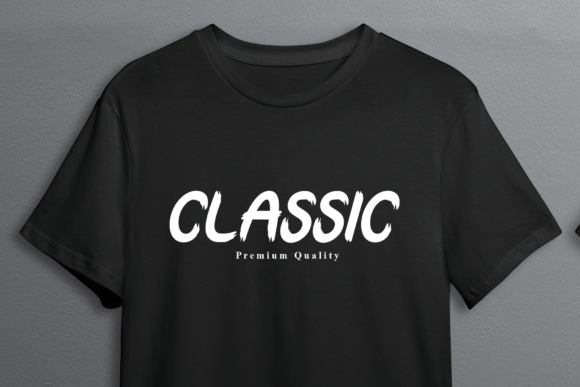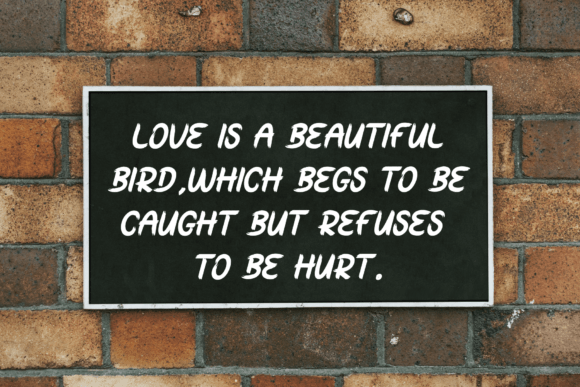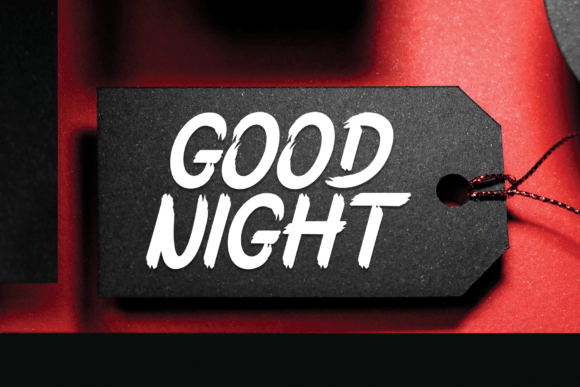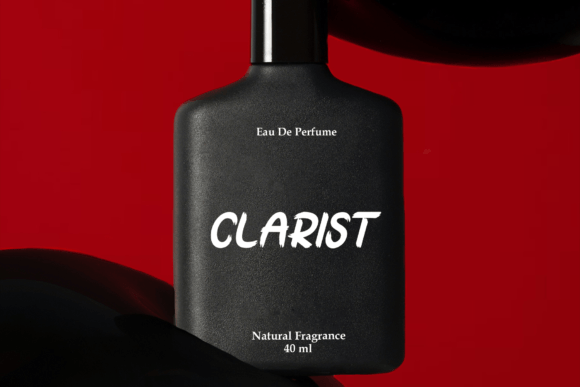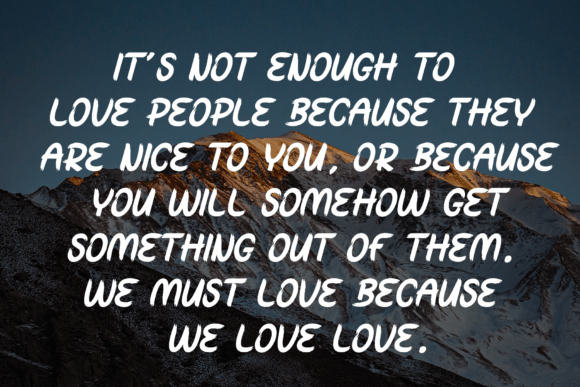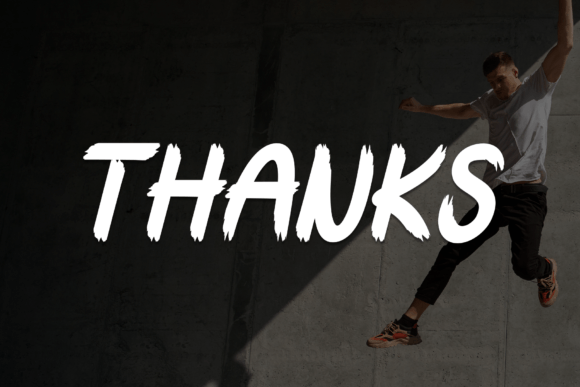
Unleashing Your Creativity with Break Jump Font
Have you ever stared at a blank page, a blank canvas, or a blank screen, and felt a rush of excitement and anticipation? That’s the moment when creativity strikes, and the possibilities seem endless. As designers, we’ve all been there – waiting for the perfect font to bring our vision to life. That’s where Break Jump Font comes in – a sweet and friendly handwritten font that’s designed to help you break free from the ordinary and jump into the world of unique and captivating designs.
Built with a natural and one-of-a-kind style, Break Jump Font is the perfect addition to any design project. Its versatility and charm make it an ideal choice for a wide range of applications, from social media graphics to product packaging, and from wedding invitations to restaurant menus. Whether you’re a seasoned designer or just starting out, Break Jump Font is a valuable tool that will help you unlock your full creative potential and take your designs to the next level.
Break Jump Font Key Features
- Font Family: Break Jump Font is a sans-serif font family designed for digital and print use.
- Unique Characteristics: Break Jump Font features a bold and energetic design, with a distinctive jump in letterforms, creating a dynamic visual effect.
Break Jump Font Review
Overall, I think the Break Jump Font is a fun and creative option for designers looking to add some energy to their projects. ✨ It’s definitely a conversation starter and can help grab the user’s attention. The font’s unique blend of bold and playful elements makes it perfect for headlines and titles.
The Break Jump Font is a great choice for:
- Creating a sense of excitement and urgency
- Designing for youth-oriented brands or products
- Adding a touch of playfulness to a design
However, I do think there are a few limitations to consider: ⚠️ The font may be too bold for some designs, and it can be overwhelming if used extensively throughout a project. Additionally, the font’s unique style may not be suitable for all types of content or audiences.
Overall, I’d give the Break Jump Font 3.5 out of 5 stars. It’s a great option for designers who want to add some flair to their projects, but it may not be the best choice for more conservative or traditional designs.
Getting the Most Out of Break Jump Font
To get the most out of Break Jump Font, try the following tips:
- Use Break Jump Font in combination with other fonts to create a unique visual effect.
- Play with color to create a bold and eye-catching design.
Break Jump Font is perfect for:
- Creating eye-catching headlines and titles.
- Designing social media graphics and ads.
- Adding a touch of personality to your brand’s visual identity.
Alternatives to Break Jump Font
Arial Black is a sans-serif font that is similar to Break Jump Font in its bold and modern look. It is suitable for headings and titles where a bold and eye-catching font is needed. It is more versatile than Break Jump Font and can be used in various contexts such as posters, flyers, and websites.
Comparison: Arial Black is more versatile and can be used in a wider range of contexts, while Break Jump Font is more limited in its usage.
Impact is a sans-serif font that is known for its bold and dramatic look. It is suitable for headings and titles where a bold and eye-catching font is needed. It is similar to Break Jump Font in its boldness, but it has a more dramatic and attention-grabbing look.
Comparison: Impact is more dramatic and attention-grabbing than Break Jump Font, but it may not be as versatile in its usage.
3. Rockwell
Rockwell is a serif font that is known for its strong and bold look. It is suitable for headings and titles where a bold and classic font is needed. It is similar to Break Jump Font in its boldness, but it has a more classic and timeless look.
Comparison: Rockwell is more classic and timeless than Break Jump Font, but it may not be as modern and trendy.